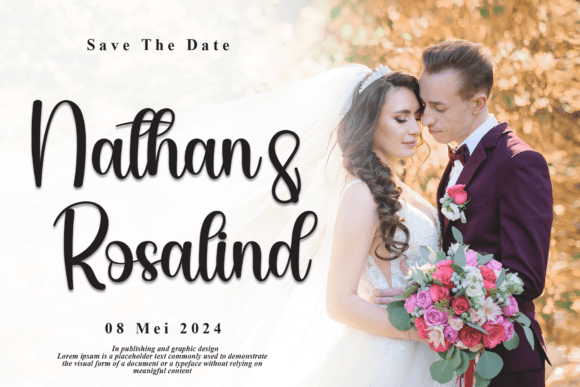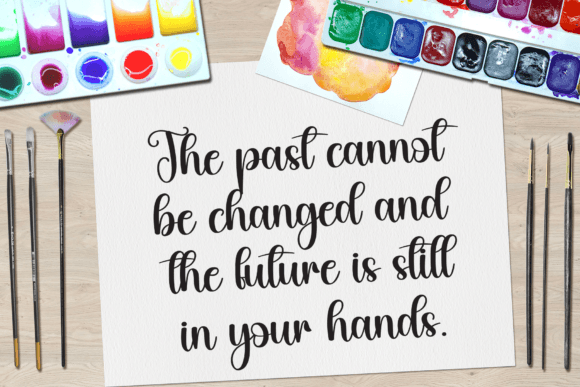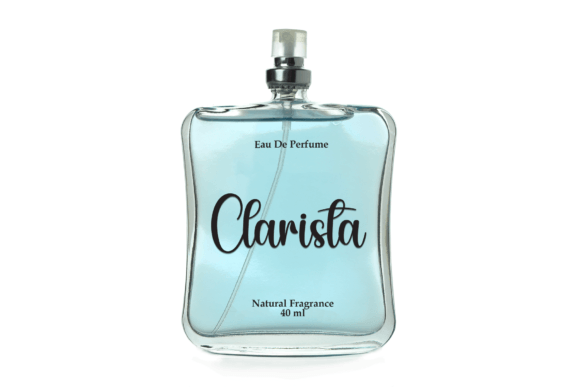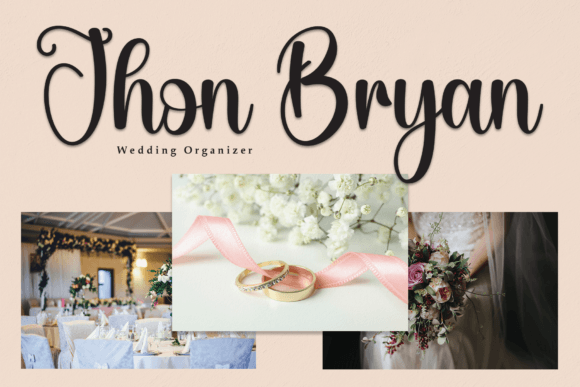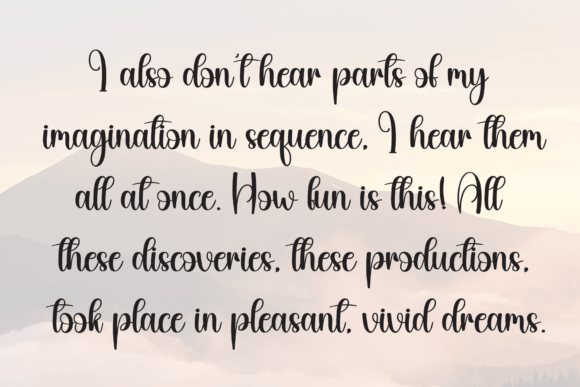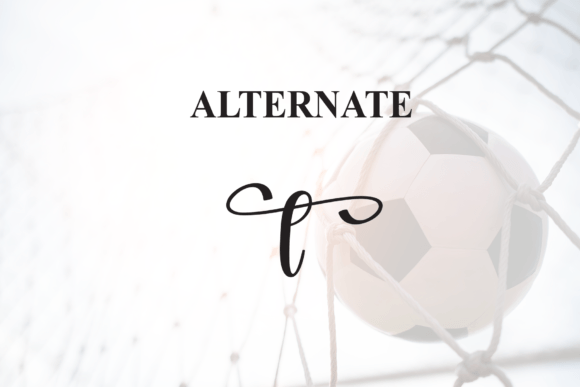
Introducing Football Font: Elevate Your Designs with Elegance and Style
Are you a designer or crafter looking for a font that can add a touch of sophistication and elegance to your work? Look no further than Football Font, a stylish and incredibly elegant script font that is perfect for a wide range of design projects. From wedding invitations and thank you cards to quotes, greeting cards, logos, and business cards, Football Font is the perfect choice for anyone looking to add a handwritten touch to their designs.
What is Football Font?
Football Font is a beautiful script font that is designed to mimic the look of handwritten text. With its flowing lines and elegant curves, this font is sure to add a touch of sophistication and style to any design project. Whether you’re working on a wedding invitation, a logo, or a business card, Football Font is the perfect choice for anyone looking to create a unique and eye-catching design.
Key Features of Football Font
So, what makes Football Font so special? Here are just a few of the key features that set this font apart:
- Elegant and sophisticated design: Football Font has a beautiful, flowing design that is sure to add a touch of elegance and sophistication to any design project.
- Handwritten look: This font is designed to mimic the look of handwritten text, making it perfect for designs that need a personal touch.
- Versatile: Football Font can be used for a wide range of design projects, from wedding invitations and greeting cards to logos and business cards.
- Easy to read: Despite its elegant design, Football Font is easy to read, making it perfect for designs that need to convey a message.
Uses for Football Font
So, what can you use Football Font for? The possibilities are endless! Here are just a few ideas to get you started:
- Wedding invitations: Football Font is perfect for wedding invitations, adding a touch of elegance and sophistication to your big day.
- Thank you cards: Show your appreciation with a beautiful thank you card featuring Football Font.
- Quotes: Add a touch of elegance to your favorite quotes with Football Font.
- Greeting cards: Football Font is perfect for greeting cards, adding a personal touch to your messages.
- Logos: Use Football Font to create a unique and eye-catching logo for your business or brand.
- Business cards: Add a touch of sophistication to your business cards with Football Font.
Tips for Using Football Font
Here are a few tips for using Football Font in your designs:
- Use it sparingly: Football Font is a elegant and sophisticated font, so use it sparingly to add a touch of elegance to your designs.
- Pair it with other fonts: Football Font pairs well with other fonts, so don’t be afraid to experiment with different combinations.
- Experiment with colors: Football Font looks great in a variety of colors, so experiment with different colors to find the perfect look for your design.